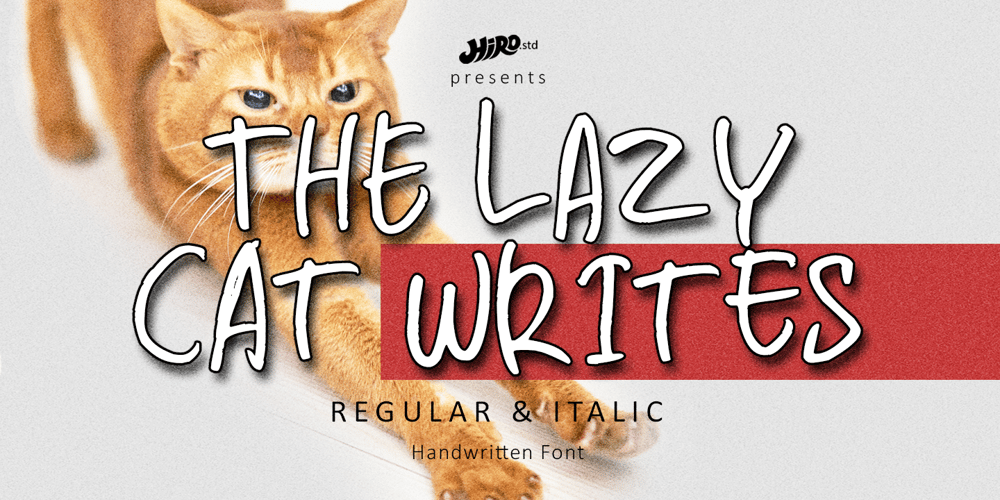
The Lazy Cat Writes Font Family was designed by Chairul Ashar and published by HIRO.std. The Lazy Cat Writes contains 2 styles and family package options. The Lazy Cat Writes is Handwritten Font This font describes about funny, dynamic, informal, easy going, humanist, easy to use and will bring a good harmony when the letters are connected and paired each other. FEATURES- 3 Alternates Uppercase letters- Numbering and Punctuations- Multilingual Support- Works on PC or Mac- Simple Installation USEThe Lazy Cat Writes works great in any poster, book, magazine, typeface, quotes, print, social media posts, e-book, and any projects that need semi casual and informal taste. Enjoy using!Thanks. HIRO.std